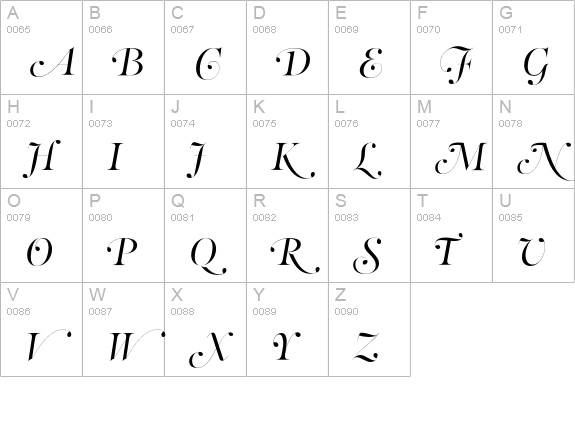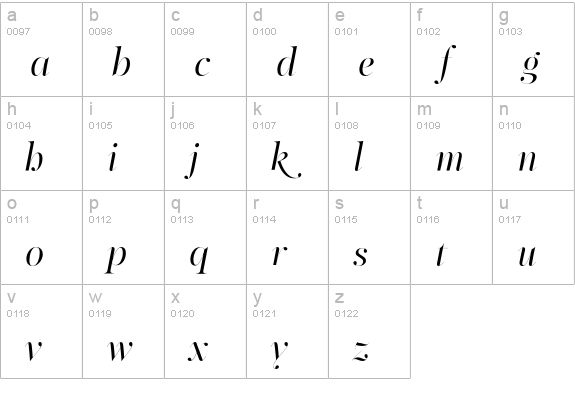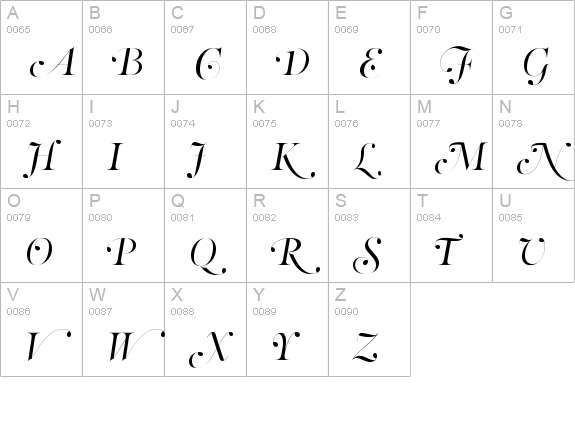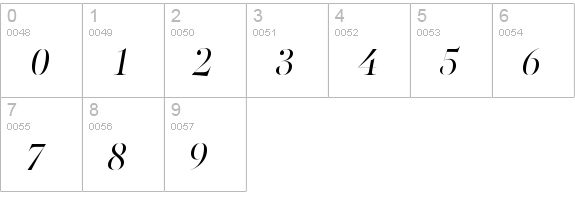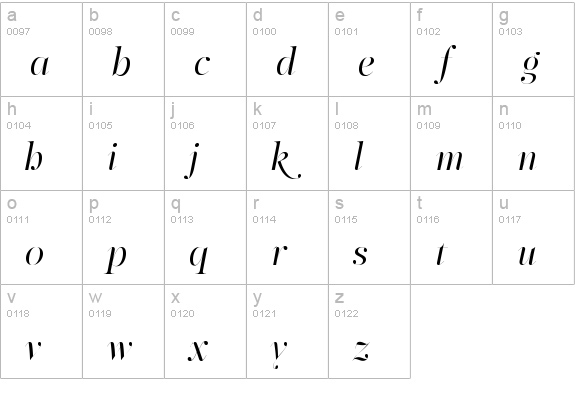
PFRegalSwashPro-Regular is the standard, neutral variant in the PFRegalSwashPro typeface family \xE2\x80\x94 well suited to general body text, paragraphs, and standard typographic work.
PFRegalSwashPro-Regular font is a sophisticated and elegant typeface that exudes a sense of luxury and refinement. Its ornate swashes and stylish flourishes add a touch of glamour to any design project, making it perfect for high-end branding, invitations, and editorial layouts. What's even better is that PFRegalSwashPro-Regular is available for free download at FontsMarket.com. This means you can access this premium font without having to spend a penny, making it a valuable addition to your font collection. Embrace the beauty and versatility of PFRegalSwashPro-Regular in your next creative endeavor and elevate your designs to new heights of sophistication.